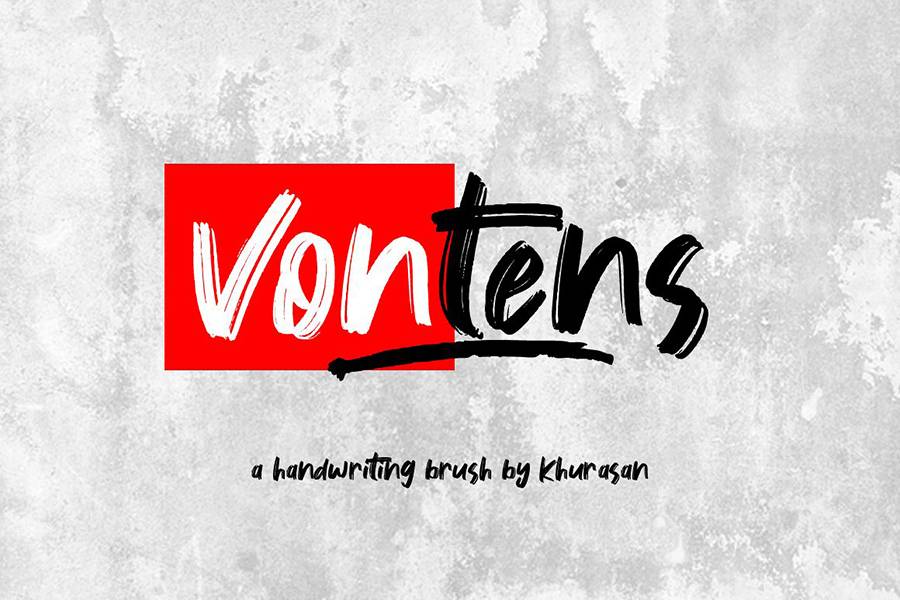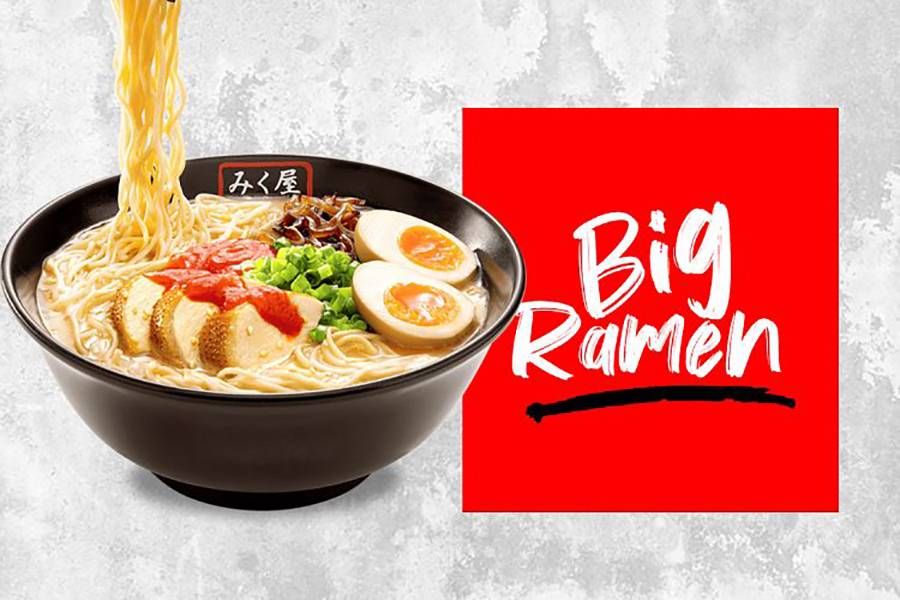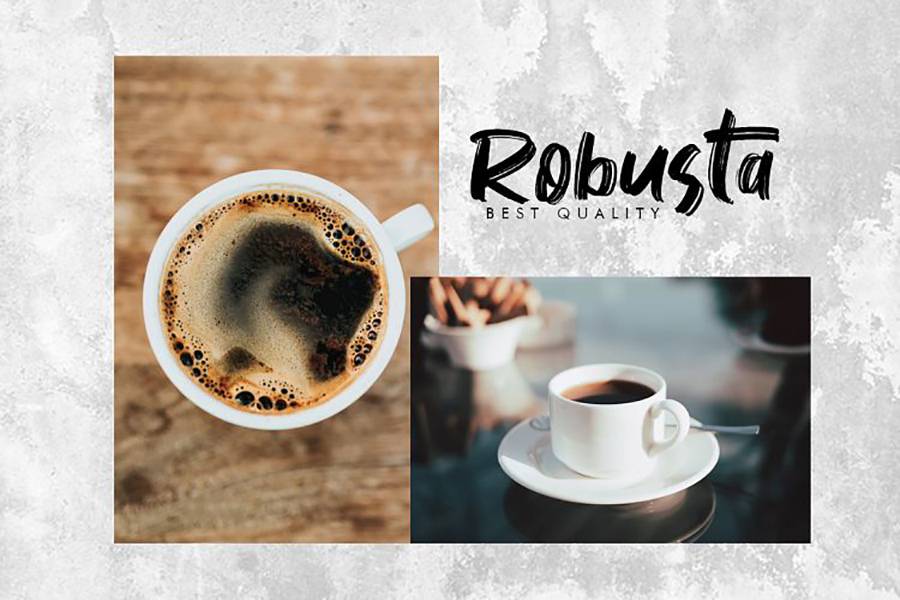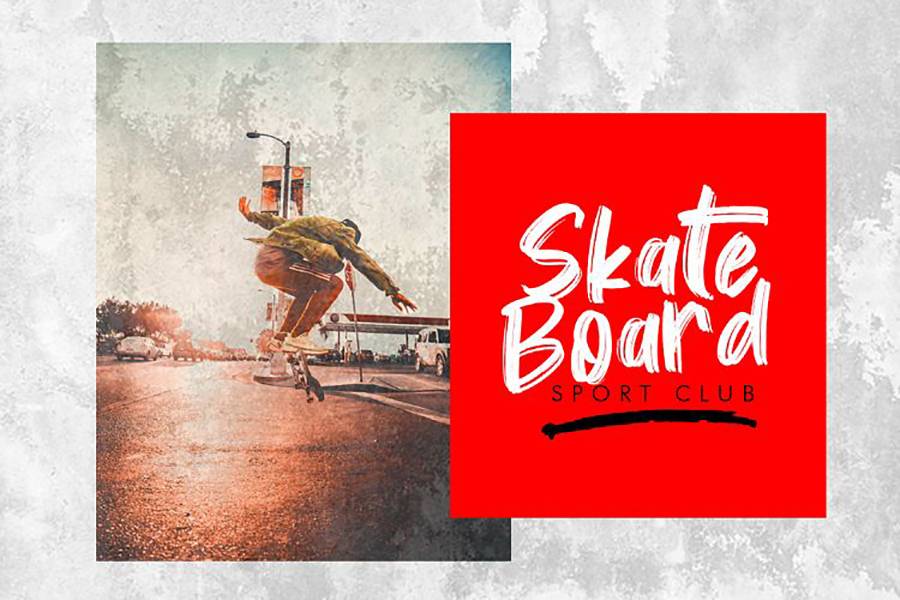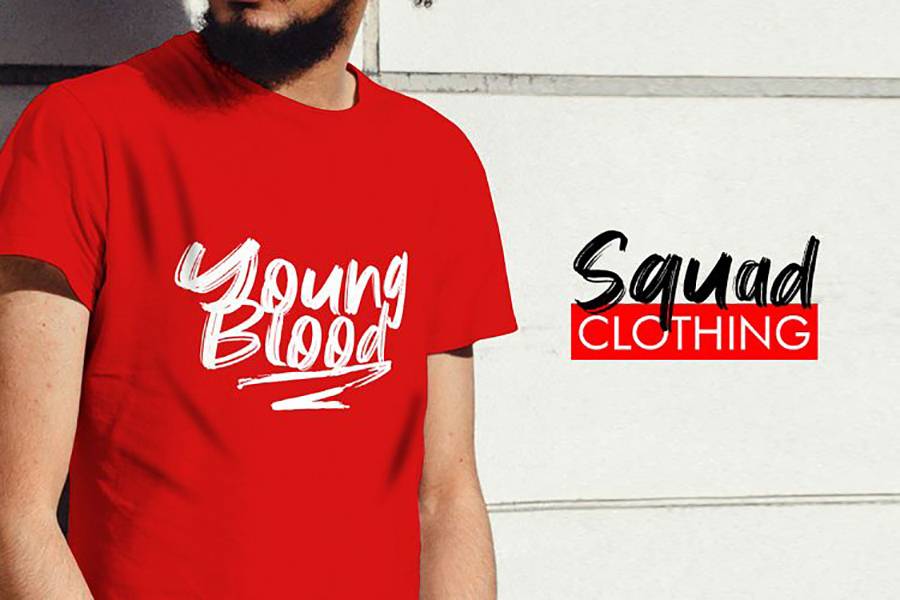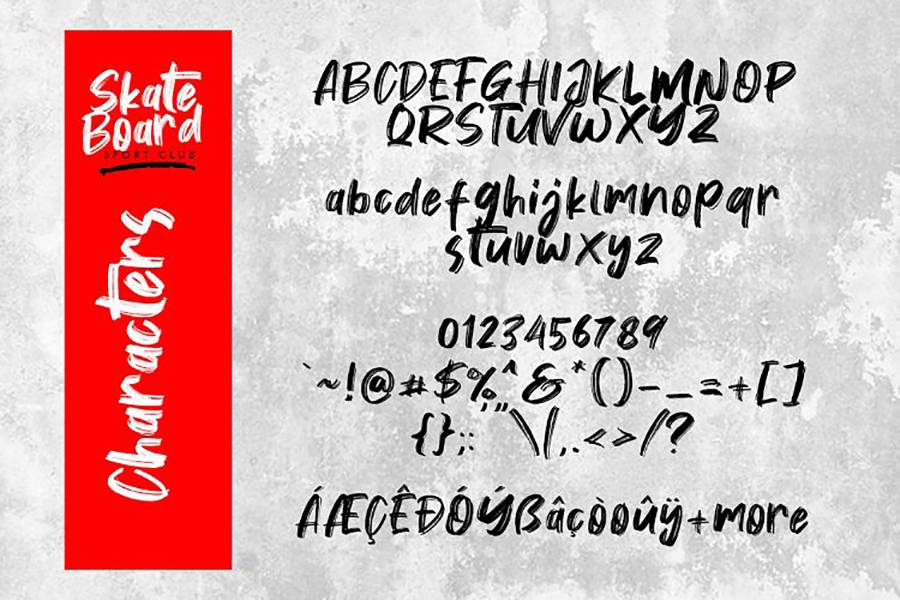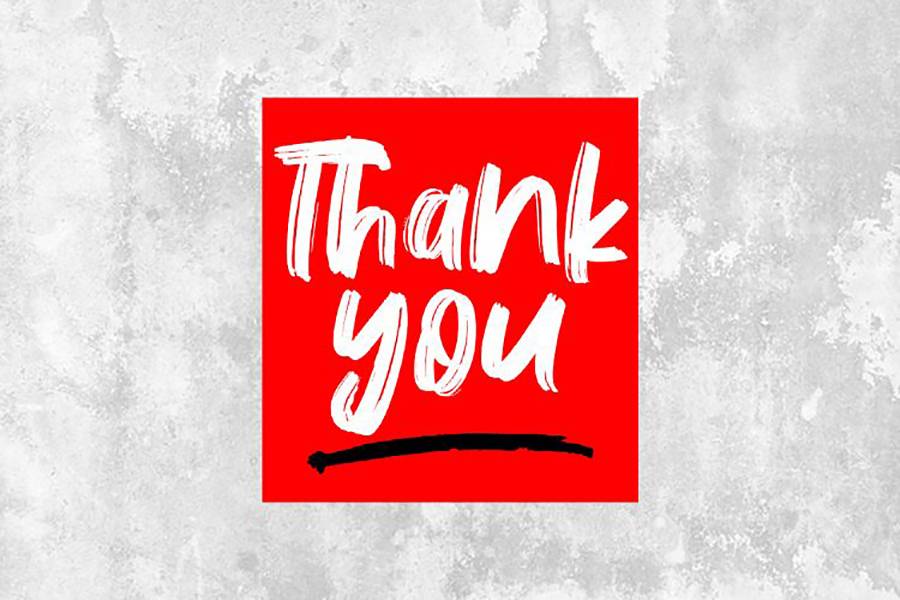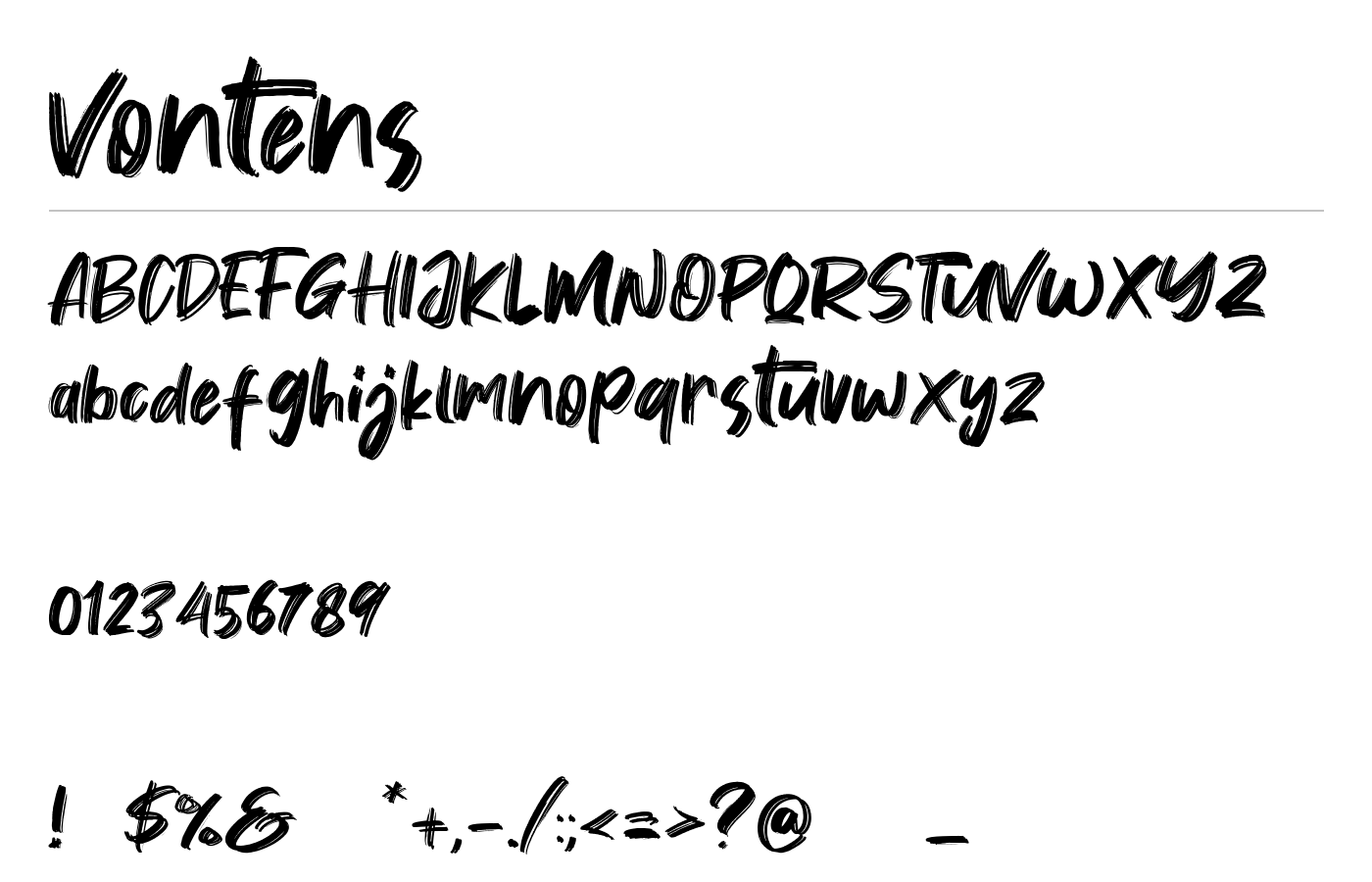
Vontens Handwriting Brush Font is a lively and dynamic brush script with bold, textured strokes that evoke a casual, hand-painted feel. Its energetic style and irregular edges give it a personal, artistic touch, making it perfect for creative branding, posters, and expressive headlines where a fun and approachable vibe is desired. This font stands out in designs that want to communicate spontaneity and warmth with a modern handwritten flair.
Vontens Handwriting Brush Font
About Vontens Handwriting Brush Font
| Font family | Vontens Handwriting Brush Font |